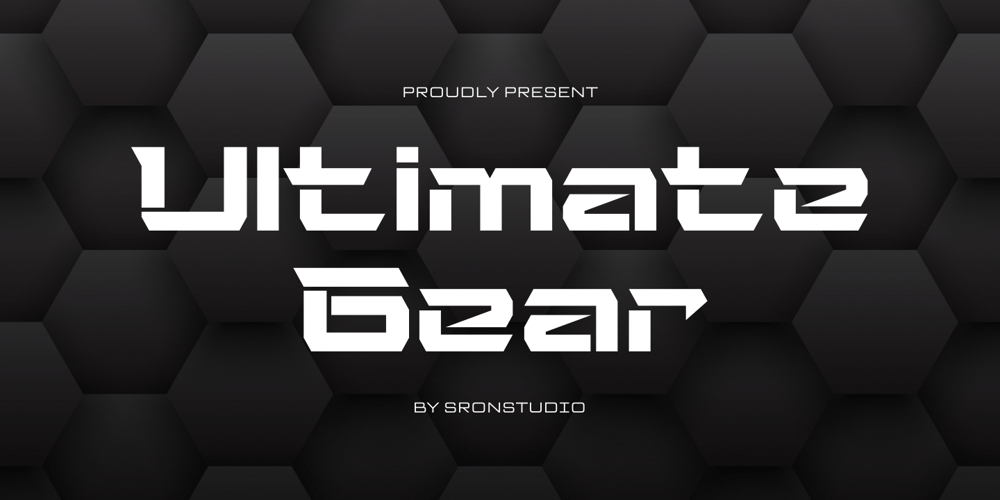
Ultimate Gear Font Family was designed by Muhamad Yusron Billah and published by Sronstudio. Ultimate Gear contains 1 styles and family package options. Introducing “Ultimate Gear,” a font that perfectly encapsulates the fusion of modern technology and the future of the automotive industry. With its sleek, high-tech design and futuristic aesthetics, this font is ideal for projects that demand a contemporary and advanced look. Whether you’re creating designs for automotive brands, tech-driven innovations, or any project related to the future of mobility, “Ultimate Gear” adds a touch of cutting-edge sophistication to your typography.Features: Alternate Uppercase and lowercase letters Multilingual, numerals, and punctuation